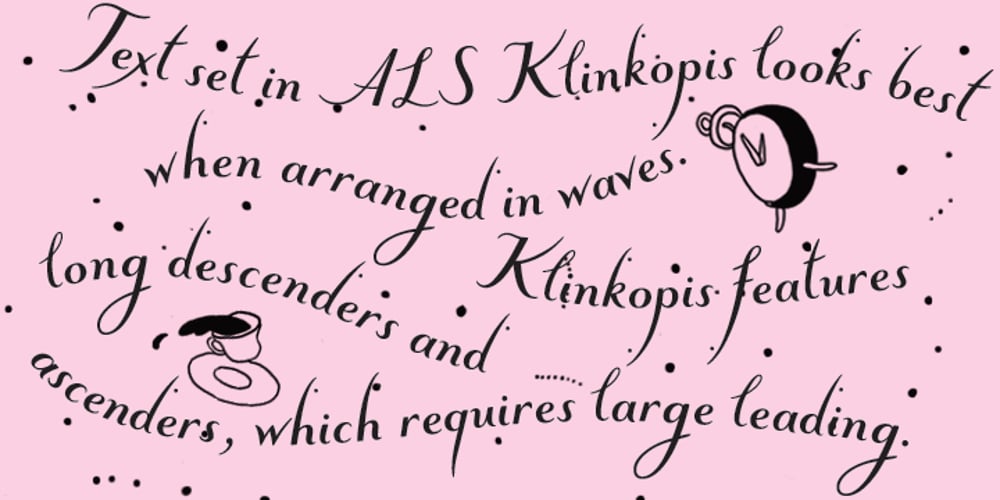
ALS Klinkopis Font Family was designed by Irina Smirnova, Yana Klink and published by Art. Lebedev Studio. ALS Klinkopis contains 1 styles and family package options. Yana Klink is an illustrator at Art. Lebedev Studio, whose works are often accompanied by lines of fancy text written in her own recognizable manner with long strokes and “beauty spots.” Once we needed to apply that style to a number of pieces of text, we decided to design a decorative script called Klinkopis. It comes in one weight (regular). Text set in Klinkopis looks best when arranged in waves, like the original. It is recommended to use large sizes—from 24 pt and up—and have no more than just a couple of lines that become an essential part of the artwork. Klinkopis is designed to use OpenType Contextual Alternates. To beautify your project even further, some characters can be manually replaced with their more intricate or plainer variations depending on the neighboring letters. Klinkopis features long descenders and ascenders, which requires large leading to avoid congestion.